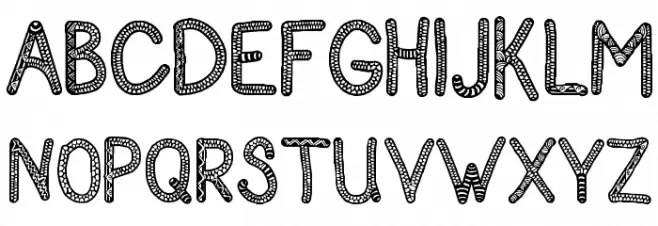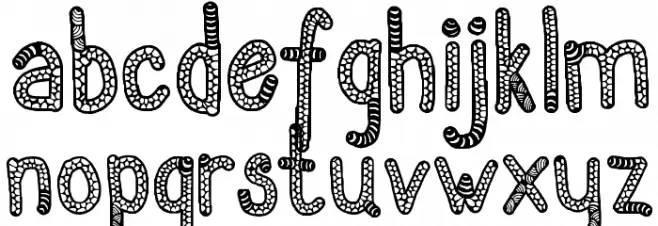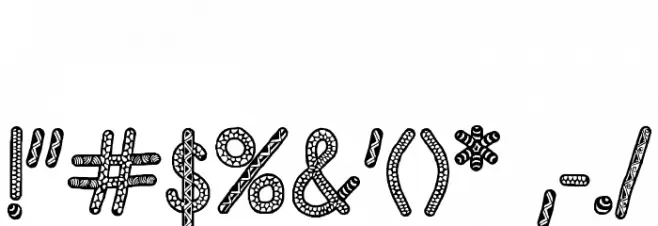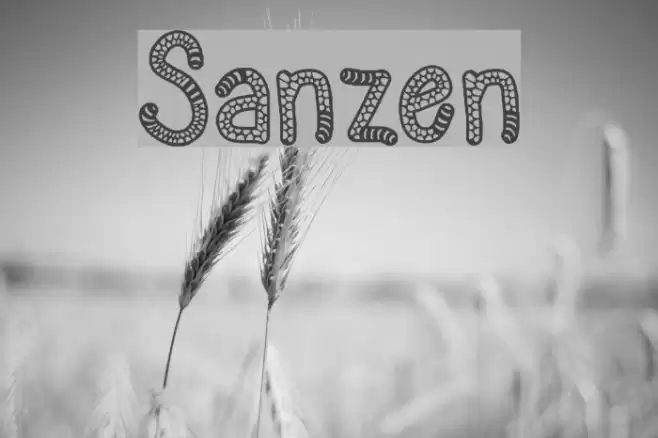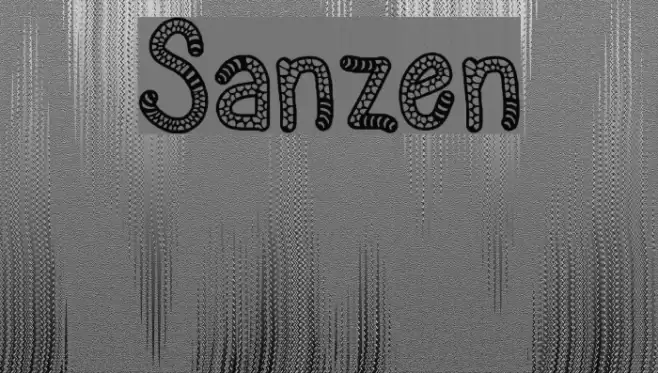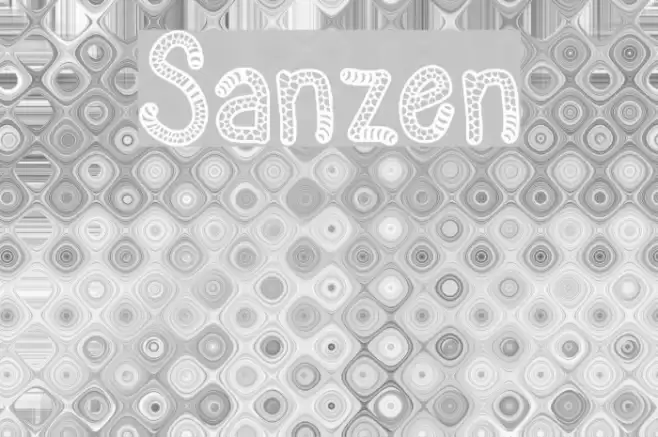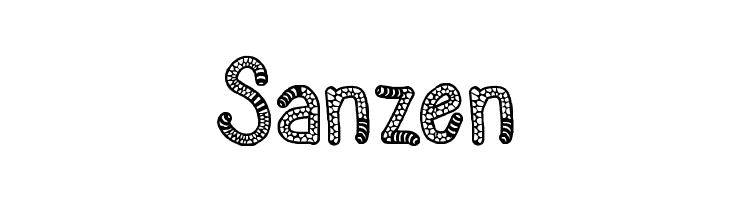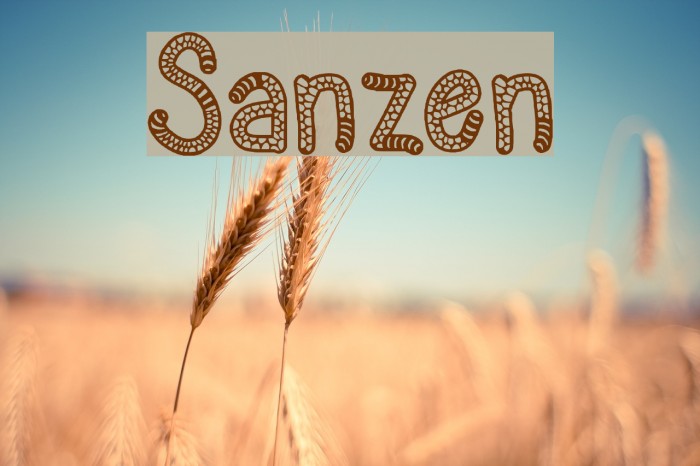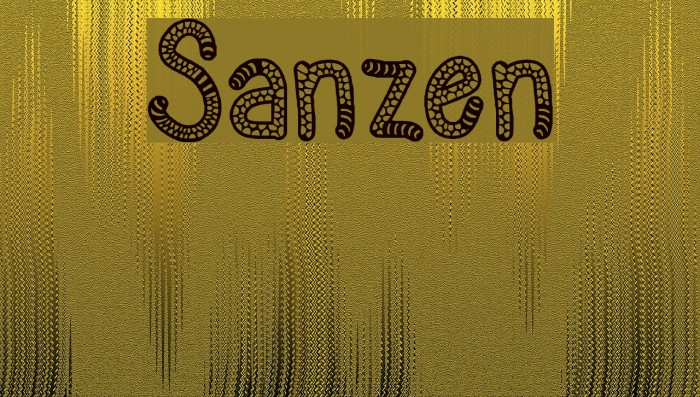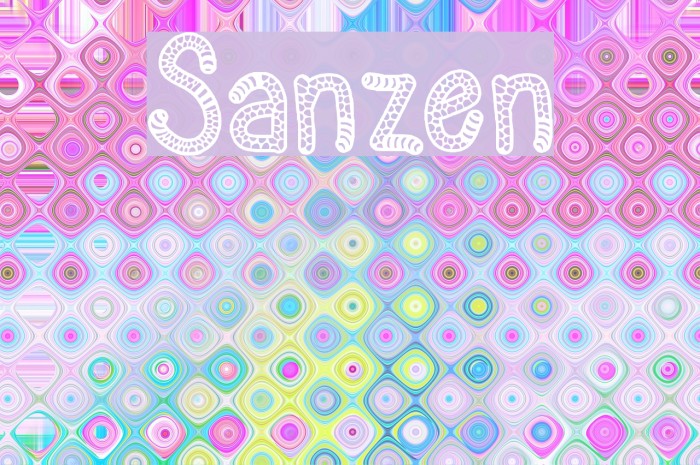
Sanzen
This font features a playful and artistic design, characterized by its intricate patterns within each letterform. The letters are bold and rounded, with a hand-drawn aesthetic that gives it a unique and whimsical appearance. The internal detailing of each character adds depth and texture, making it stand out as a decorative typeface. The font includes both uppercase and lowercase letters, along with a variety of special characters, all maintaining the same artistic style. Its distinctive look makes it suitable for creative projects that require a touch of personality and flair.
A playful, hand-drawn font with intricate internal patterns and a whimsical style.
- Proposed Projects: Ideal for children's book covers, playful branding, artistic posters, and creative invitations.
- Overall Style: Decorative
- Use Case: Logos, Headlines, Posters